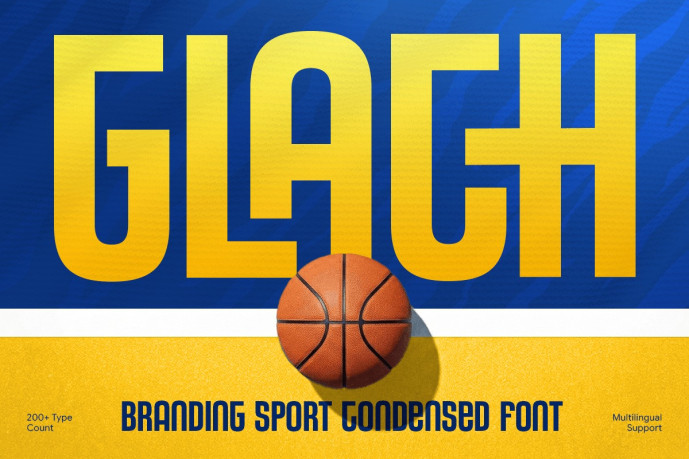
Glach – Sport Font
Glach – Branding Sport Condensed Font
Glach is a modern branding sport condensed font designed to deliver speed, strength, and bold visual impact. Featuring narrow letterforms, sharp geometric construction, and a dynamic athletic style, Glach is perfect for sports branding, tournament graphics, esports visuals, fitness campaigns, posters, and high-energy creative projects.
Combining streamlined condensed typography with contemporary sports aesthetics, Glach creates a powerful and memorable visual identity. Its space-efficient structure ensures excellent readability while maintaining a competitive and energetic appearance, making it ideal for gaming brands, sporting events, digital campaigns, fitness promotions, and modern visual communication.
Glach – Branding Sport Condensed Font Features:
Modern condensed style with bold sport-inspired aesthetics
Narrow letterforms with dynamic athletic character
Ideal for sports branding, tournaments, posters, and digital campaigns
Uppercase, lowercase, numerals, and punctuation included
Excellent readability with space-efficient construction
Perfect for esports, fitness, event promotions, and creative branding
Power your visual identity with Glach – the condensed sport font crafted for bold and competitive branding.